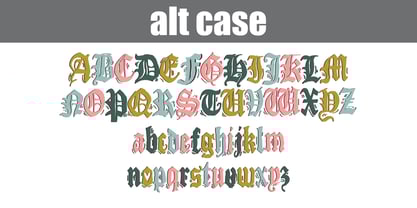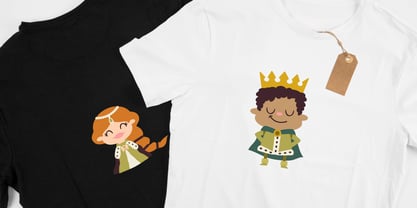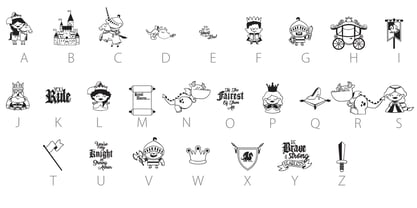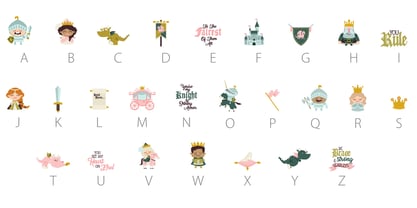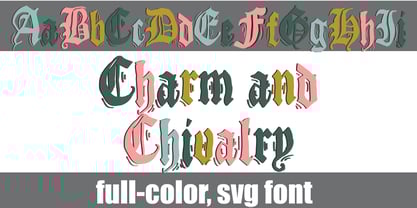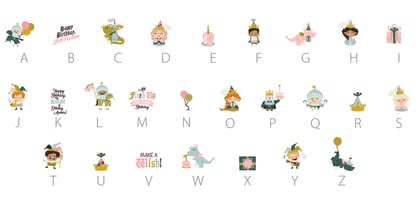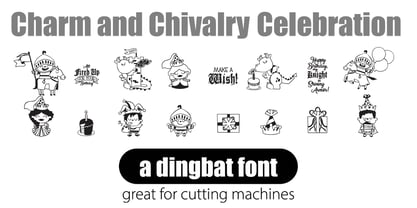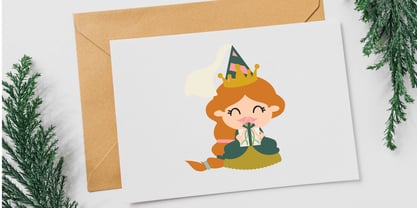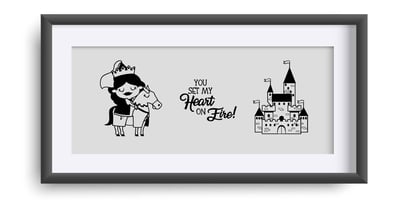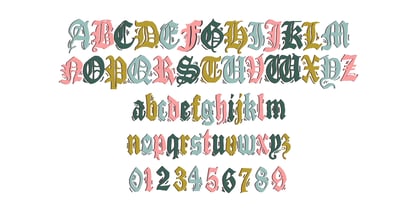
Charm And Chivalry
by Illustration Ink
The Charm And Chivalry Font Family was designed by Illustration Ink and published by Illustration Ink. Charm And Chivalry contains 5 styles and family package options.
This Charm and Chivalry collection includes a full color font, two full-color, svg dingbat fonts and two regular dingbat fonts featuring our adorable Charm and Chivalry characters. There is a full alternate upper and lowercase in alternate colors to help you stay creative in the main color font. This font works best for titles, displays, posters and more.